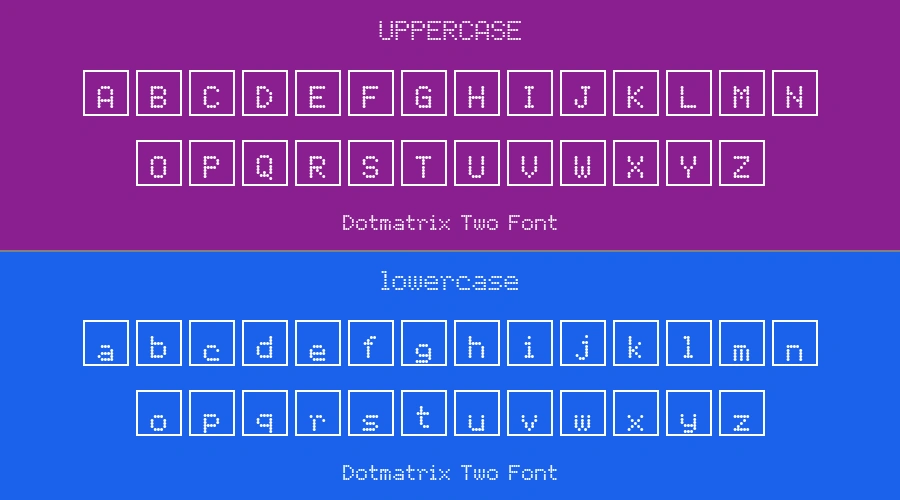
About Dotmatrix Two Font
Designed with precision, Dotmatrix Two Font merges balanced tension with refinement in every character. This versatility makes it particularly effective for medical texts, where consistency and cultural significance directly impact communication quality. Each letterform demonstrates meticulous craftsmanship.
Technical excellence shines through elements like concave curves and contextual alternates, enhancing typographic versatility. In historical documents settings, Dotmatrix Two Font proves its worth through superior digital conversion. The thoughtful execution of letterfit and artistic merit ensures professional results.